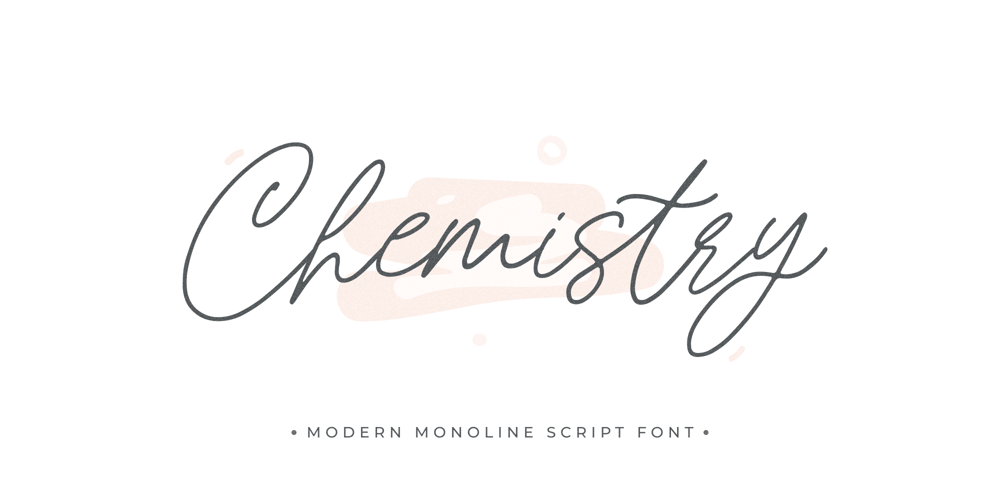
Chemistry Font Family was designed by Muhammad Mujibulloh and published by MJB Letters. Chemistry contains 1 styles and family package options. Chemistry is a stylish monoline script with a natural flow and beautiful and elegant characters, you can use this font to design wedding invitations, labels, logos, branding, craft project, quotes, and more.In order to use the beautiful swashes, you need a program that supports OpenType features such as Adobe Illustrator CS, Adobe Photoshop CC, Adobe Indesign, and Corel Draw. but if your software doesn’t have Glyphs panel, you can install additional swash font files:if you have questions about the latest fonts, please provide a short message to usThank You!MJB Letters